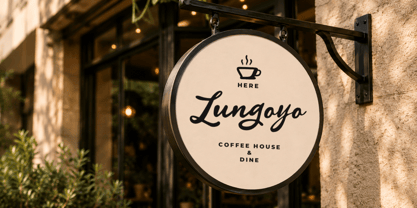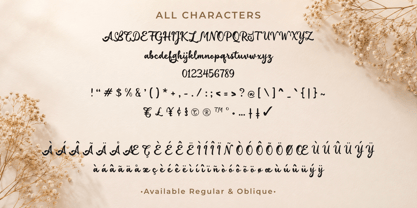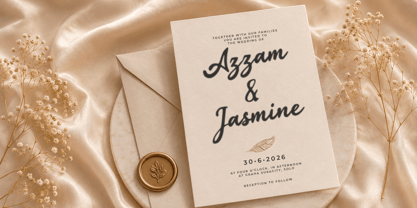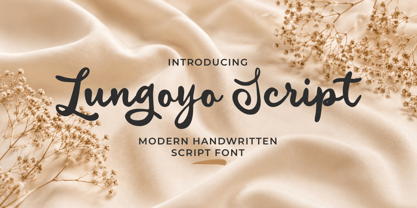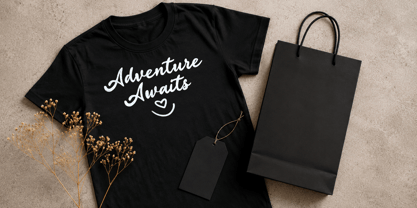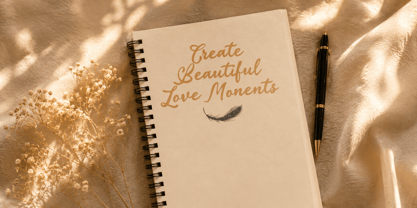
Lungoyo Script
Lungoyo Script is a modern handwritten script font crafted to bring elegance, warmth, and authenticity to your creative projects. Featuring smooth flowing strokes, natural letter connections, and a stylish handwritten feel, this font is perfect for branding, logos, packaging, social media graphics, wedding invitations, product labels, quotes, and signature designs.
Designed with versatility in mind, Lungoyo Script delivers a clean yet expressive appearance that works beautifully across both digital and print applications. Its charming curves and contemporary script style make it an excellent choice for designers seeking a professional handwritten touch with excellent readability.
Features
• Uppercase & Lowercase Characters
• Numbers & Punctuation
• Multilingual Support
• Stylistic Handwritten Script Design
• Smooth Ligature-Friendly Letterforms
• Regular Style & Oblique
• Suitable for Branding, Logos, Packaging, Invitations, Social Media, and Merchandise